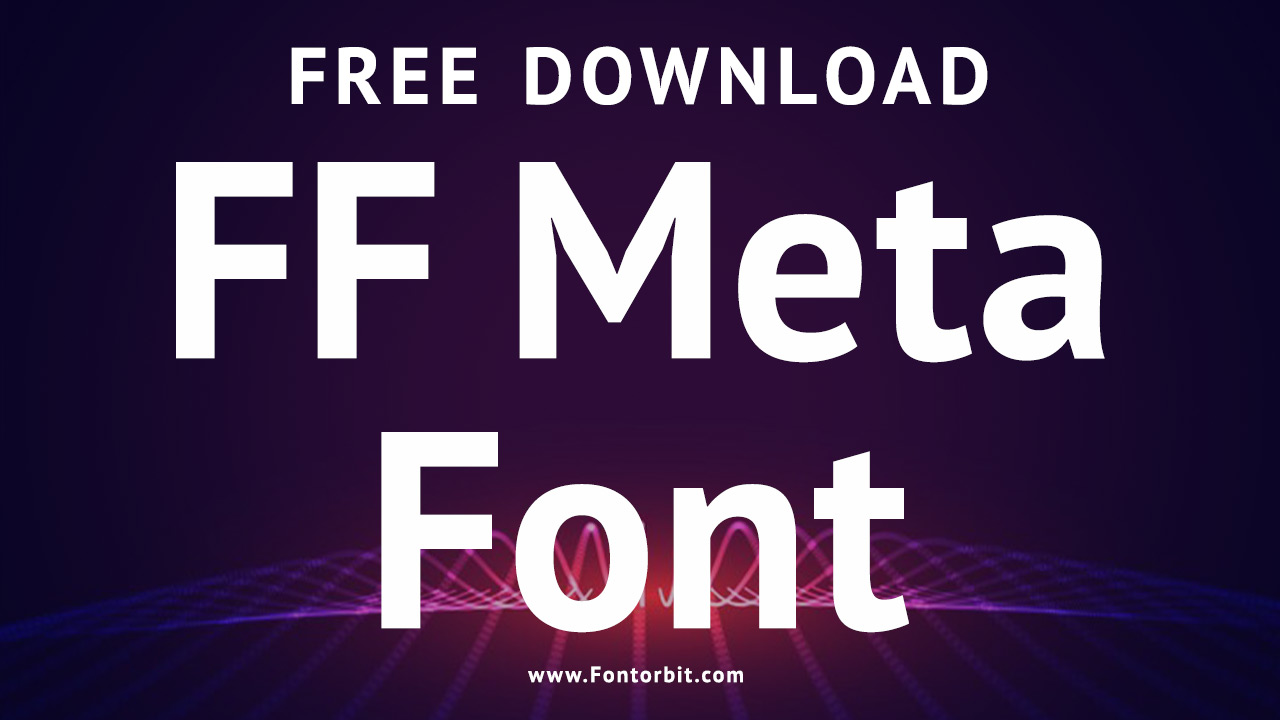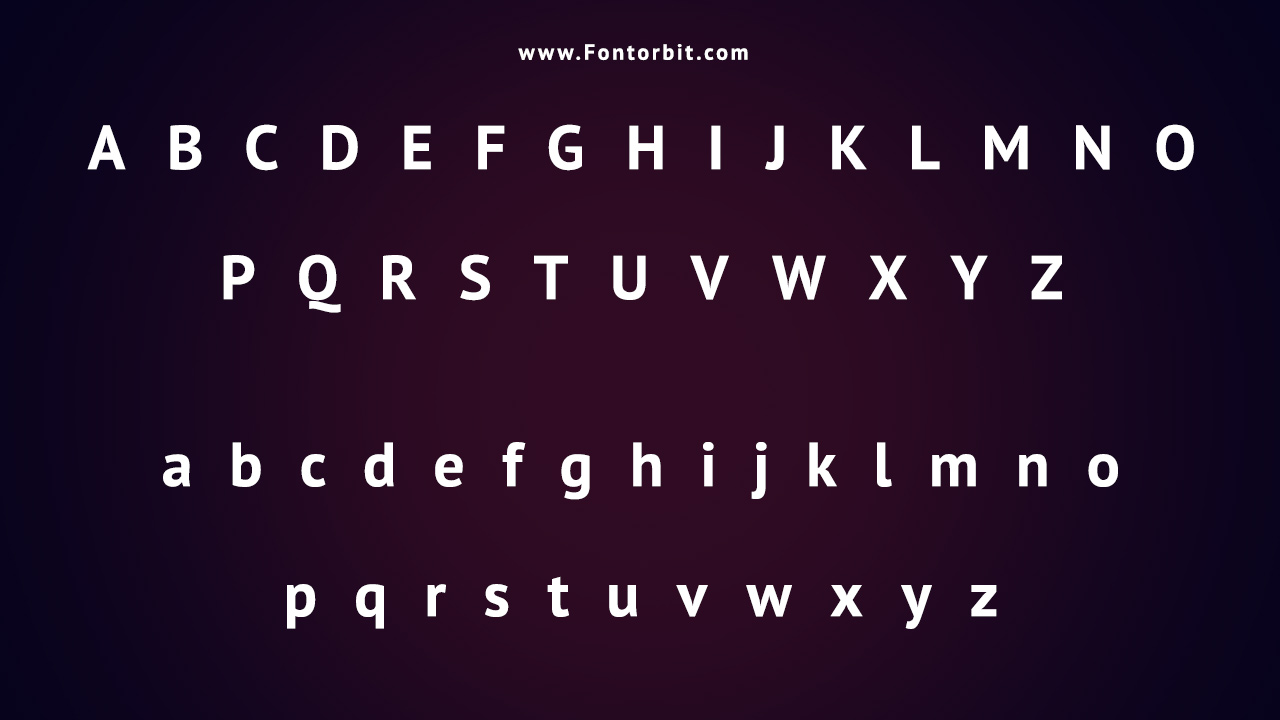
FF Meta, a humanist sans-serif font designed by Erik Spiekermann, was released in 1991. Known for its high legibility and open apertures, it became famous for its clarity in both small and large sizes.
FF Meta was originally designed for the German Post Office but was later published by FontFont after they chose not to adopt it. It’s available in various weights and formats across multiple platforms, though it is not freely downloadable.
FF Meta Family Includes
FF Meta comes in eight weights with six condensed versions, making it versatile for different uses. It also belongs to a larger family, including FF Meta Serif, perfect for pairing with the original.
Notable Uses Of FF Meta
FF Meta has been widely used in branding and signage. It’s often seen in public transportation systems, including the Berlin Metro, and publications like The Economist. It is known for being dubbed “the Helvetica of the 1990s.”
FF Meta’s versatility makes it ideal for various design contexts. It works exceptionally well in corporate branding, signage, and editorial work. With its clear readability, it’s also suitable for long-form text.
FF Meta is a legendary typeface that combines modern design with exceptional functionality. Its open letterforms and various weights make it a solid choice for many design projects, both in print and digital.
1.What Are The Main Uses Of FF Meta?
It is widely used in signage, editorial design, and corporate branding.
2.What Is A Free Alternative To FF Meta?
Open Sans is a popular free alternative.
4.Can I Use FF Meta In Logos?
Yes, it is commonly used in branding and logos.
5.What Fonts Pair Well With FF Meta?
FF Meta Serif is a great companion.
7.How Does FF Meta Compare To Helvetica?
FF Meta is often seen as a more humanized and legible alternative to Helvetica, especially in small sizes.